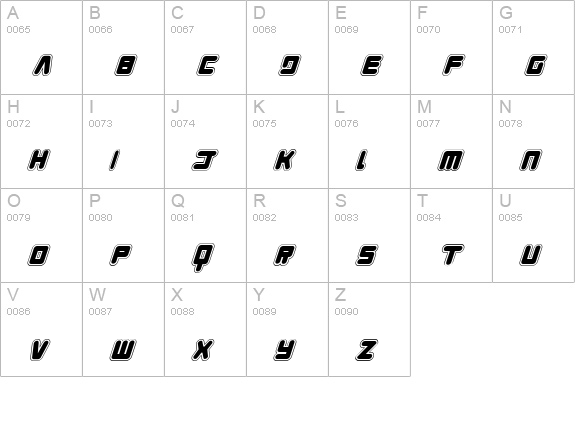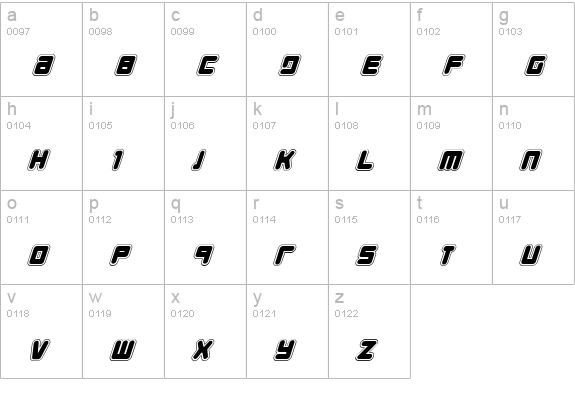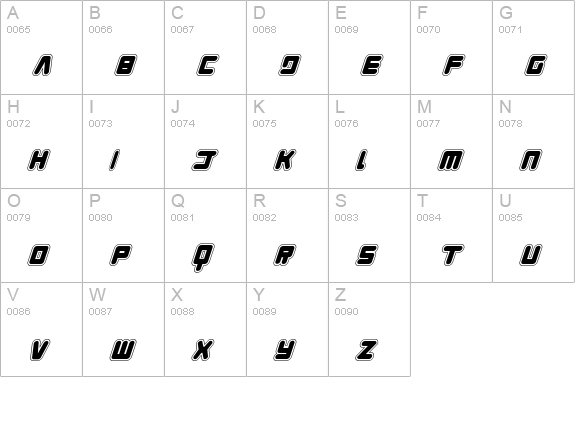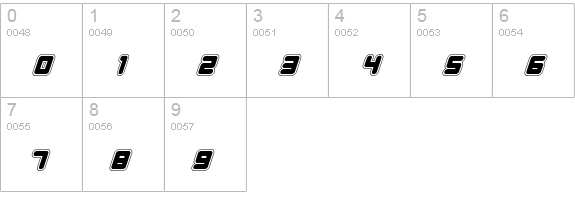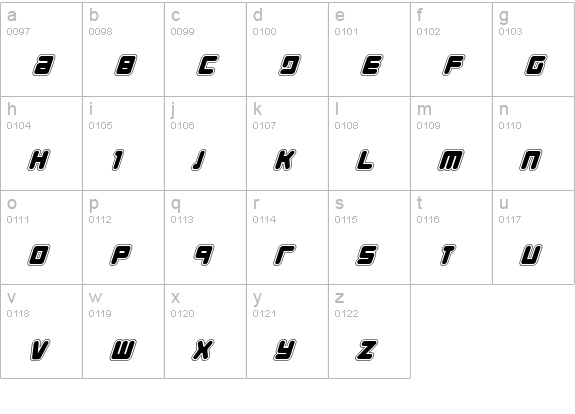
Young Techs Academy Italic Font Details
Young Techs Academy Italic is a distinctive, italic variant in the Young typeface family \xE2\x80\x94 well suited to design and typography projects.
Young Techs Academy Italic font is a modern and sleek typeface designed for tech-savvy individuals and digital enthusiasts. With its clean lines and contemporary flair, this font is perfect for creating a cutting-edge look in your projects. The italic style adds a dynamic touch, making it ideal for headings, logos, and branding materials. What makes Young Techs Academy Italic font even better is that it is offered for free! Yes, you read that right - you can download this stylish font at no cost from FontsMarket.com. Whether you are working on a website design, presentation, or any other creative project, Young Techs Academy Italic font will help you make a bold statement with its futuristic appeal. Elevate your designs with this versatile and eye-catching typeface today!